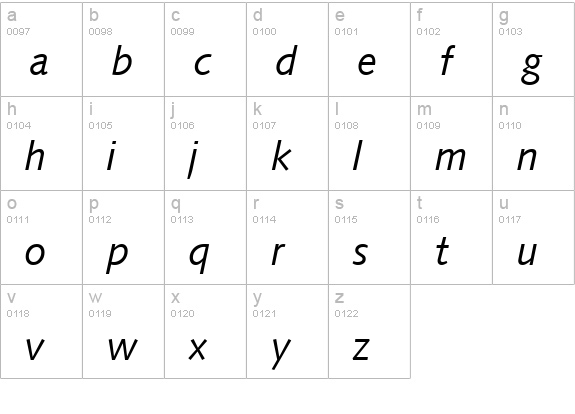
Symphony Italic is a distinctive, italic variant in the Symphony typeface family \xE2\x80\x94 well suited to design and typography projects.
Symphony Italic font is a graceful and elegant typeface that exudes sophistication and charm. Its flowing lines and delicate curves give a sense of musicality and rhythm to any text it adorns. The italicized style adds a touch of flair and sophistication, making it perfect for formal invitations, elegant branding, and stylish designs. The best part is, Symphony Italic font is available for free download at FontsMarket.com! Now you can effortlessly add a touch of class to your projects without breaking the bank. Whether you're designing a wedding invitation, creating a logo for your business, or crafting a stylish poster, Symphony Italic font is sure to elevate your design to the next level. Download it today and unleash your creativity with this beautiful and versatile typeface.